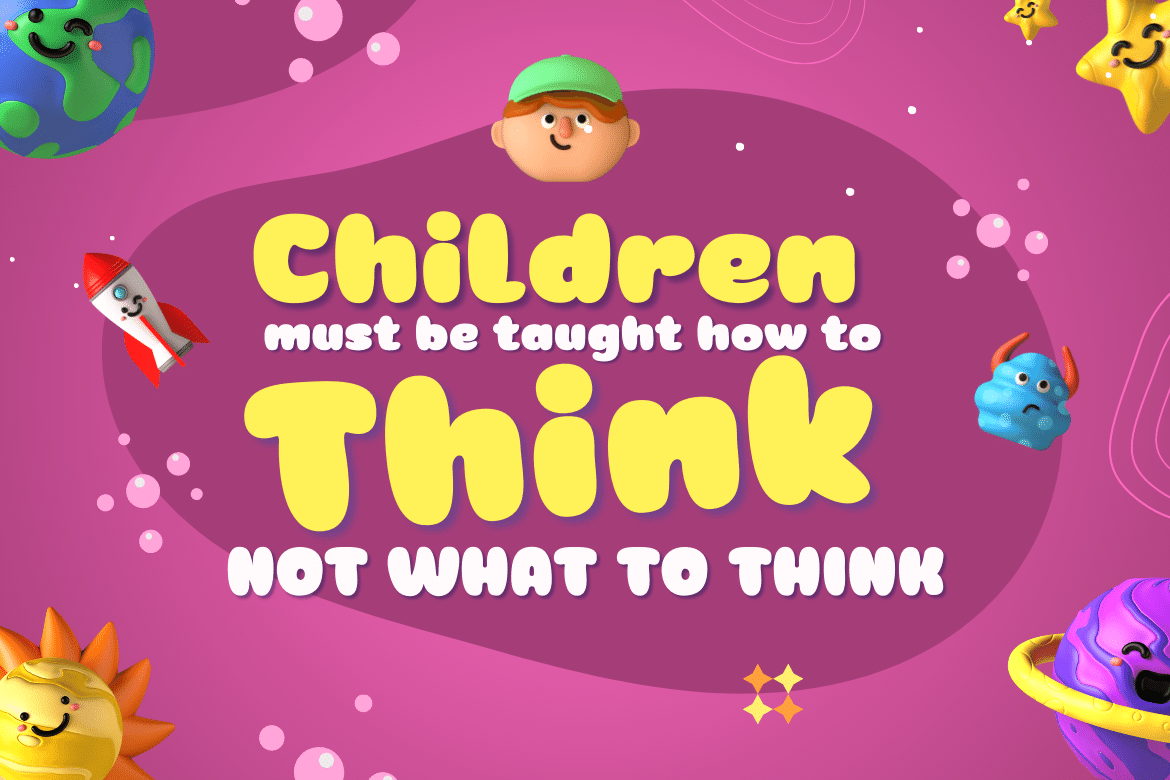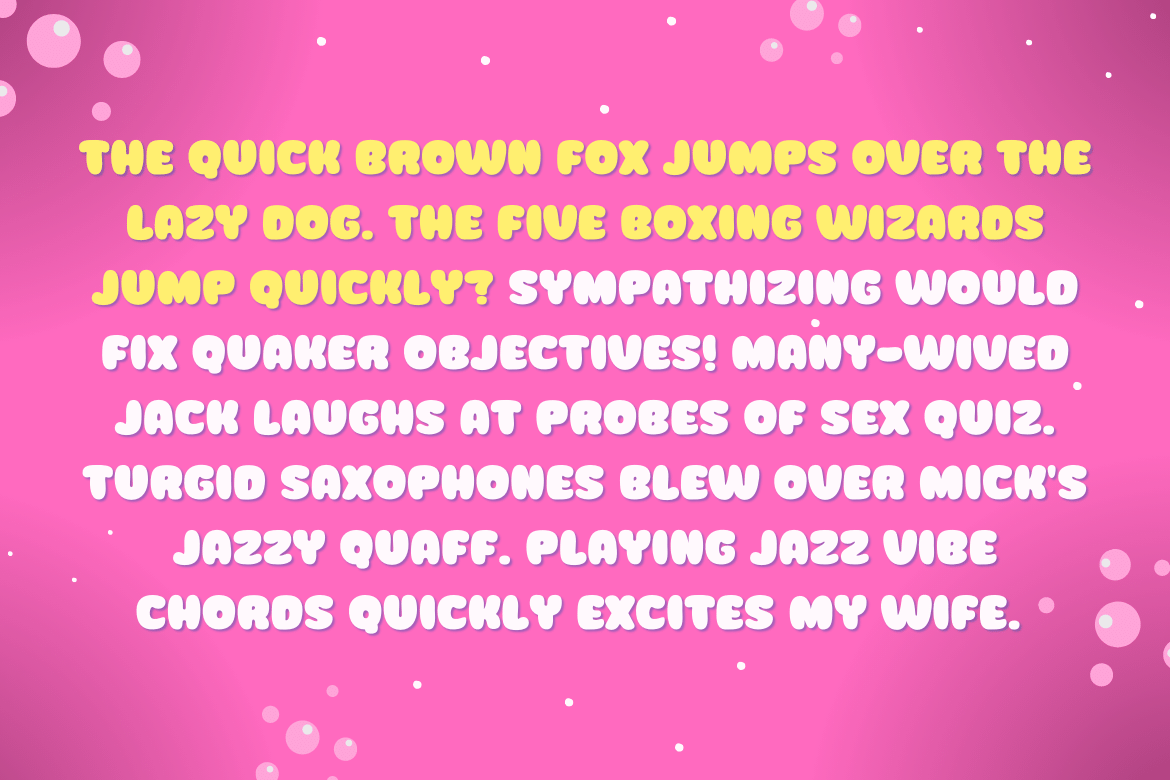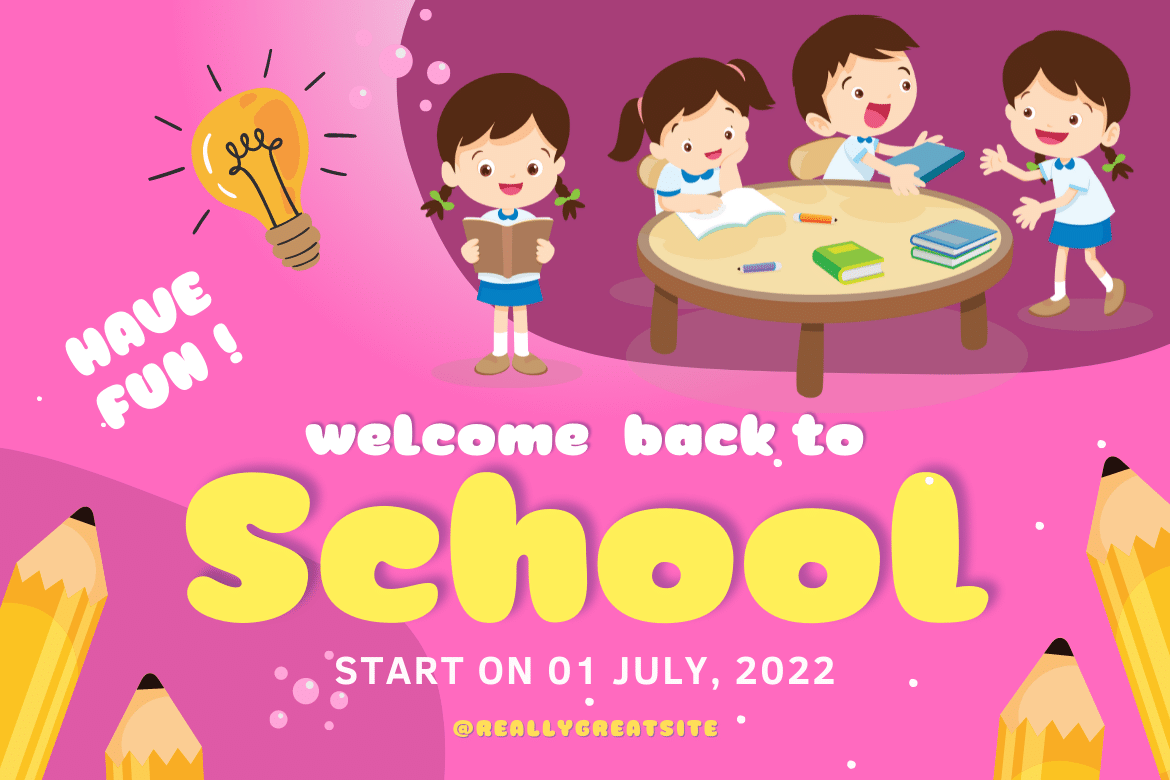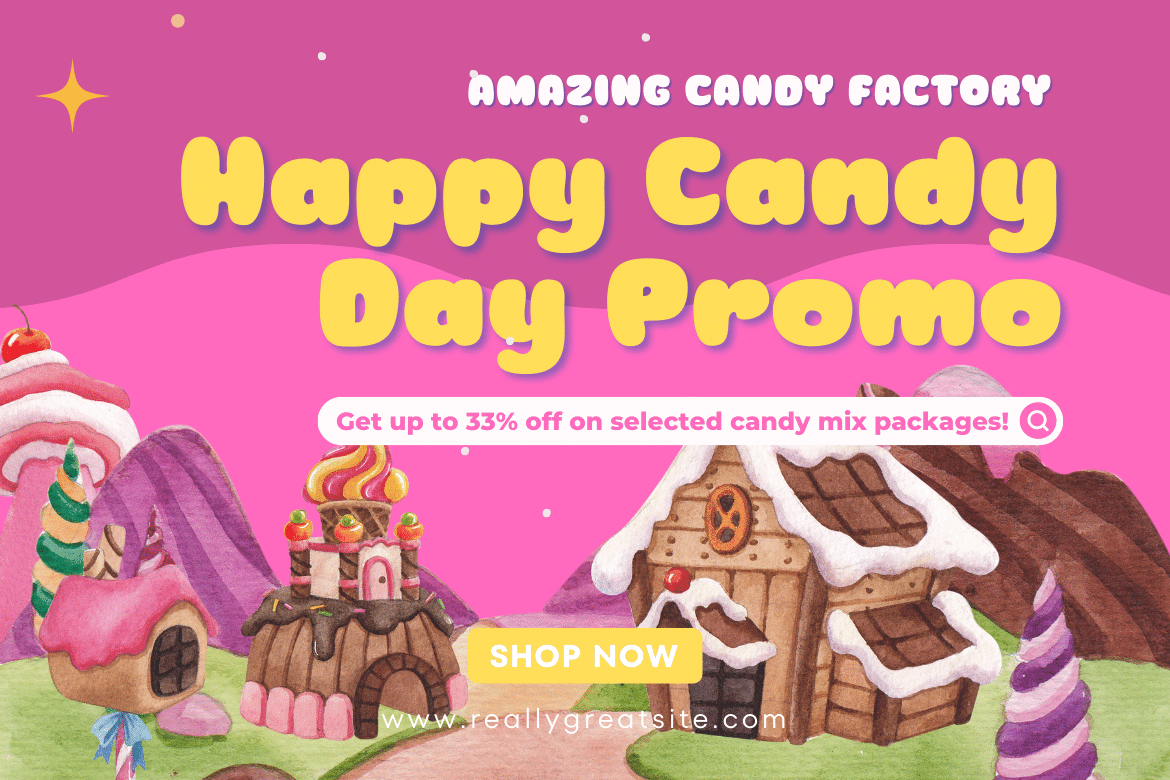
Heycaz Font
Heycaz Display Font
It’s a quirky and cute font designed with passion and fun. This font is very suitable for a variety of your projects, use this font to get a beautiful and captivating visual impression that can captivate the entire audience.
of course, your various design projects will be perfect and extraordinary if you use this font because this font is equipped with a font family, both for titles and subtitles and sentence text, start using our fonts for your extraordinary projects.